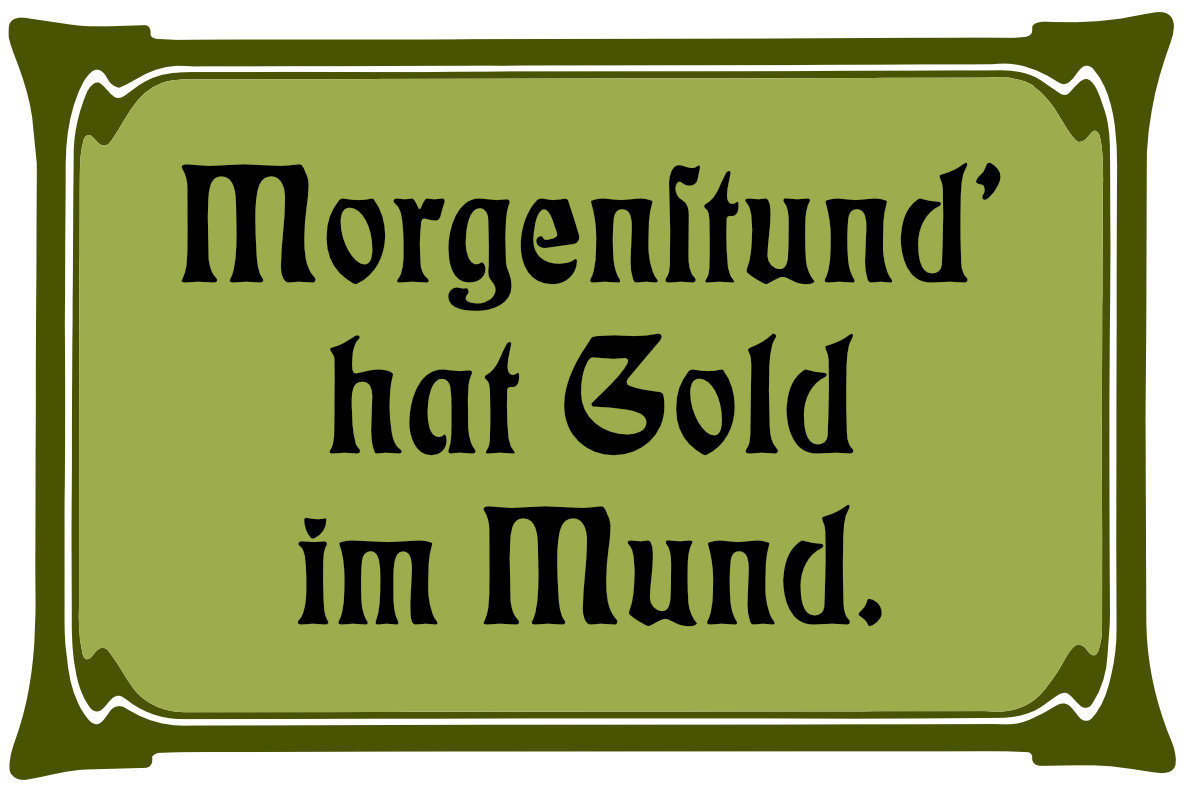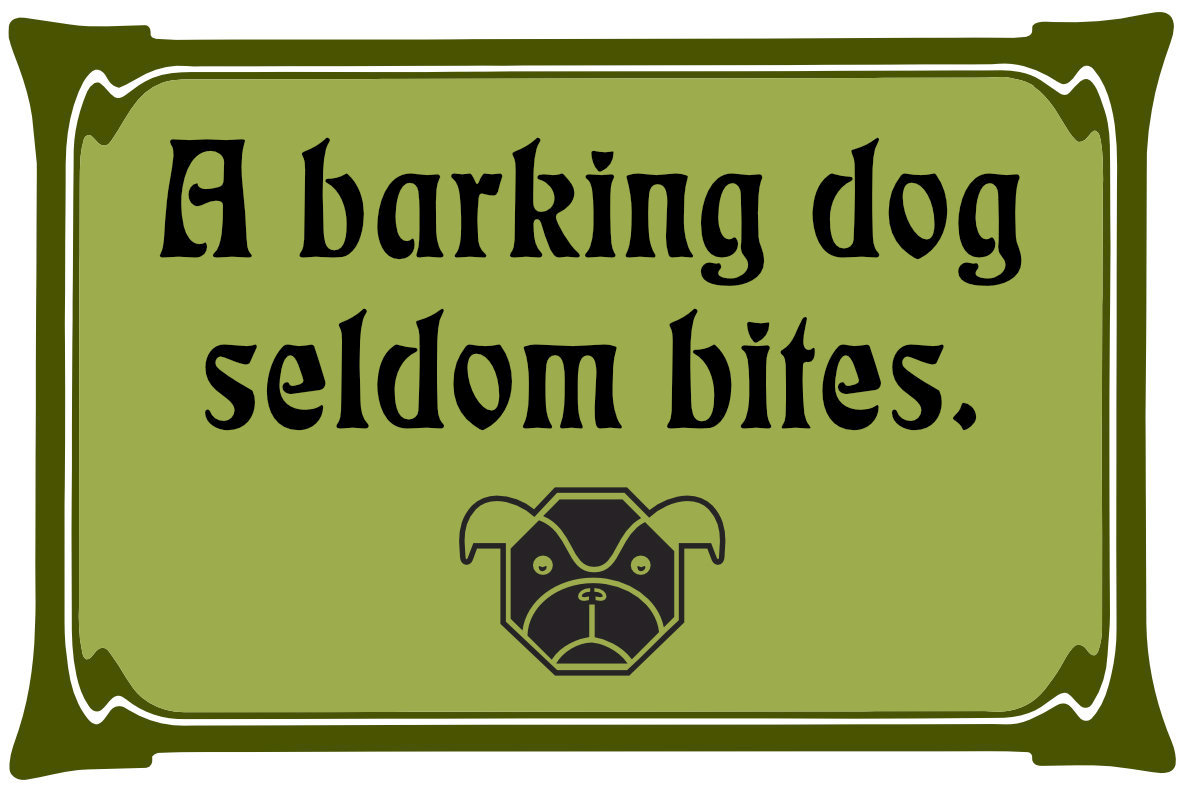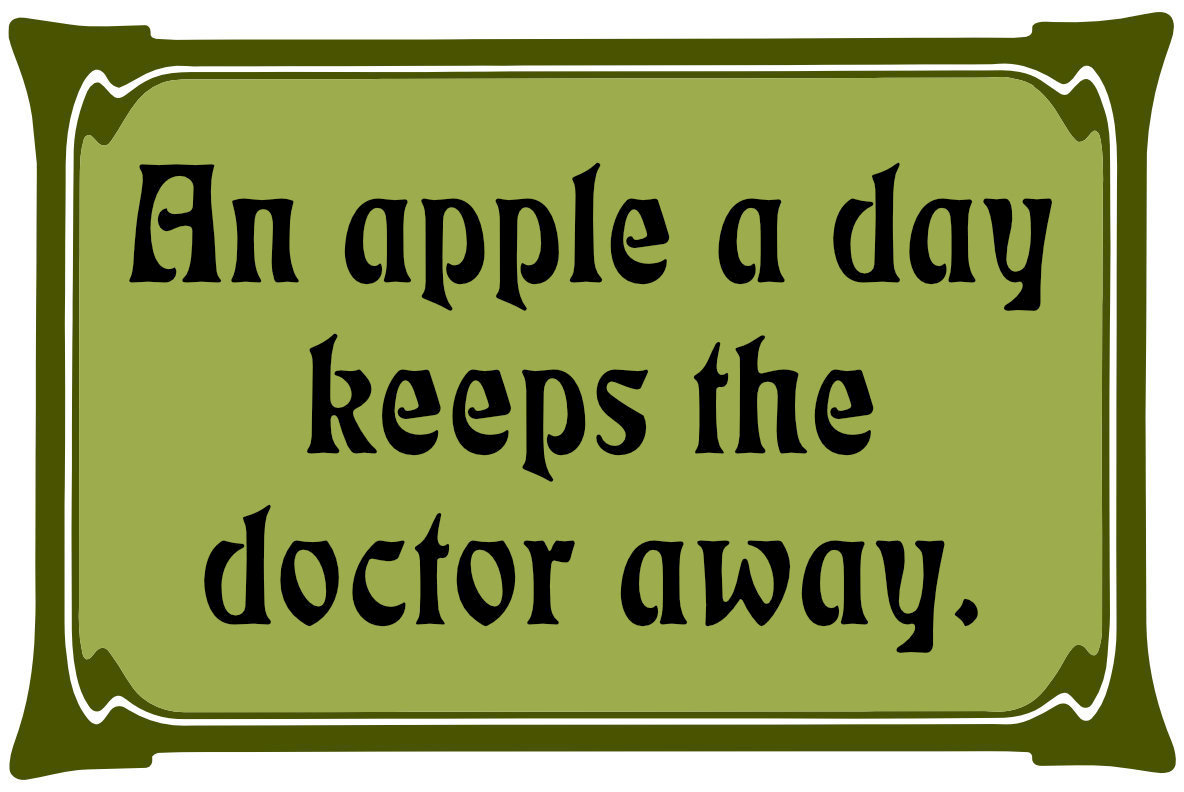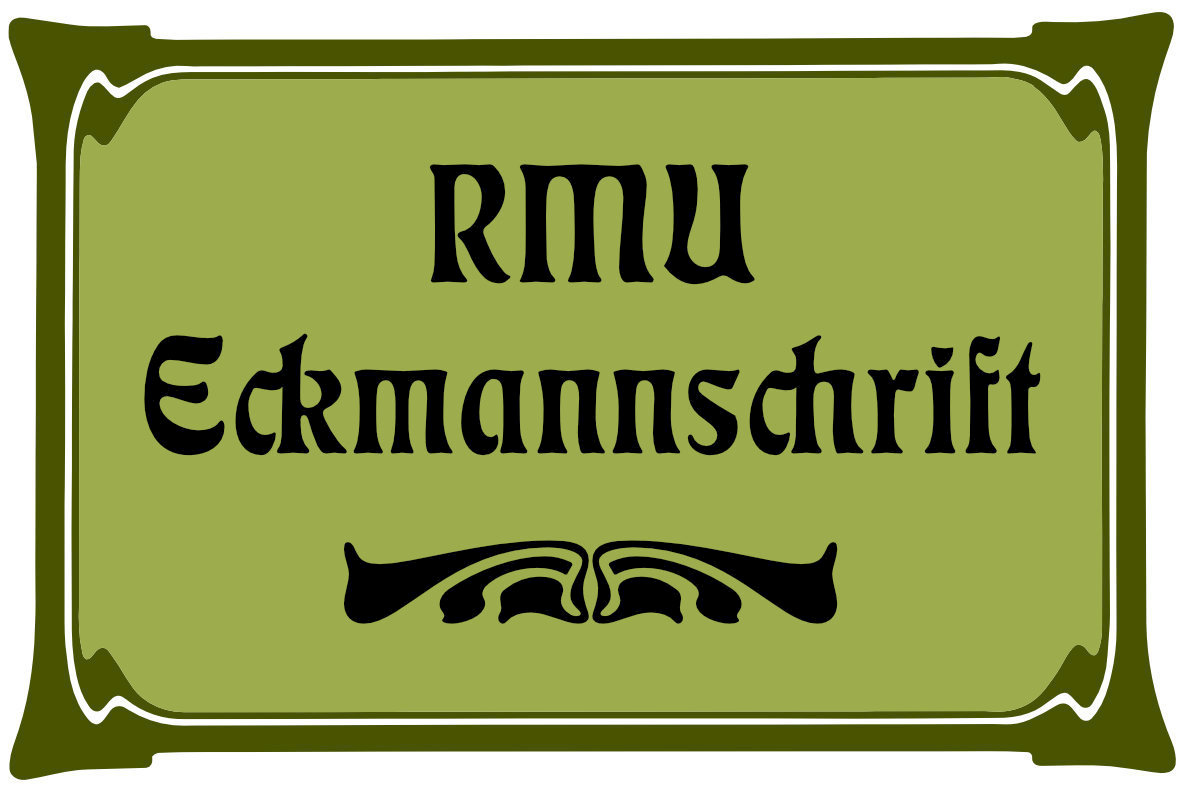
RMU Eckmannschrift Font Family
Originally designed by Otto Eckmann at the turn of the centuries, RMU Eckmannschrift is a freshly redrawn and designed Art Nouveau revival with letterforms representing the hot-metal original as close as possible. This font also contains a few alternatives which can be activated by using the swash letter OTF feature.Furthermore you may adorn your text with RMU Initials No. 1 lowercases.